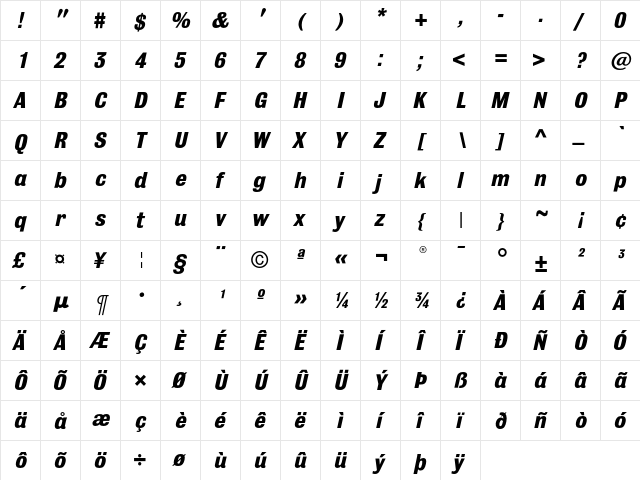
Bulldog BoldItalic Font Preview
Design Context for Bulldog Typeface
Bulldog offers clean, dependable letterforms without strong stylistic allegiance, making it a practical choice for designers who need flexibility. Its italic angle brings a sense of urgency and motion to the letterforms. The heavy weight commands attention and anchors typographic hierarchies.
Pro Tip: Try Bulldog for annotation and caption copy alongside an upright companion — the contrast in angle creates a dynamic but ordered typographic system.